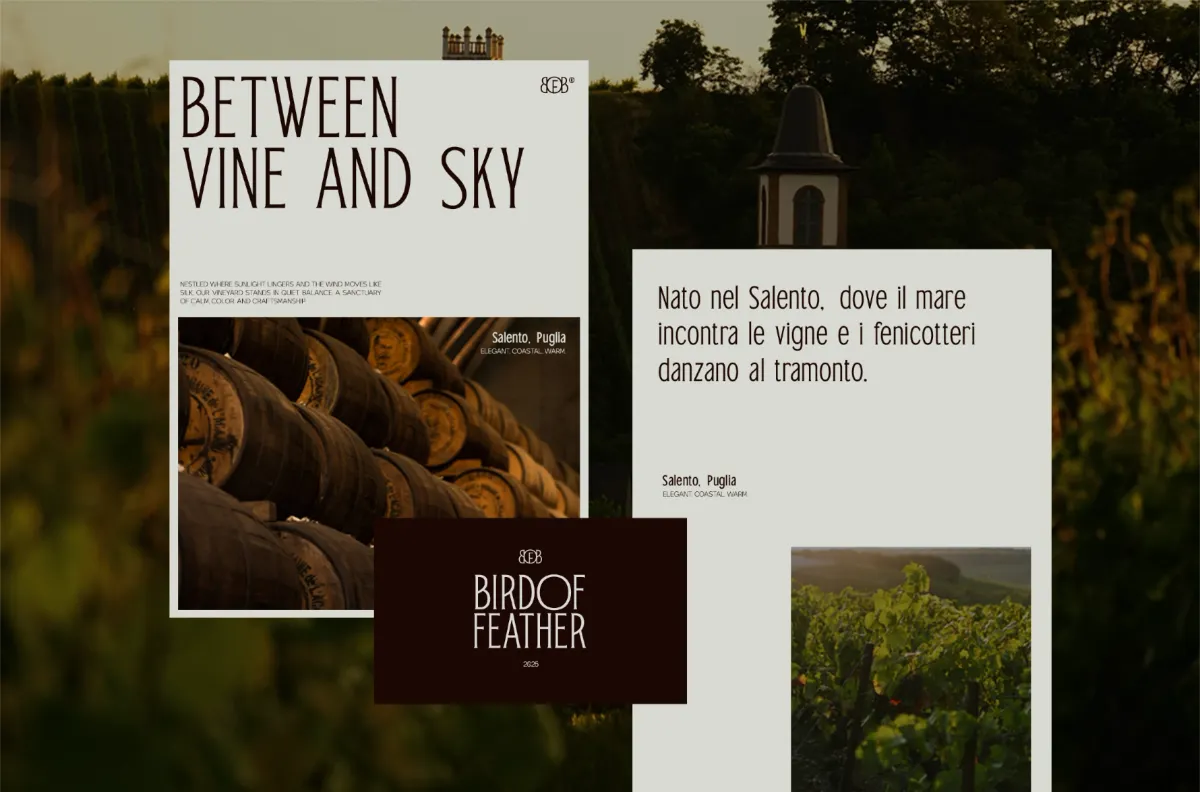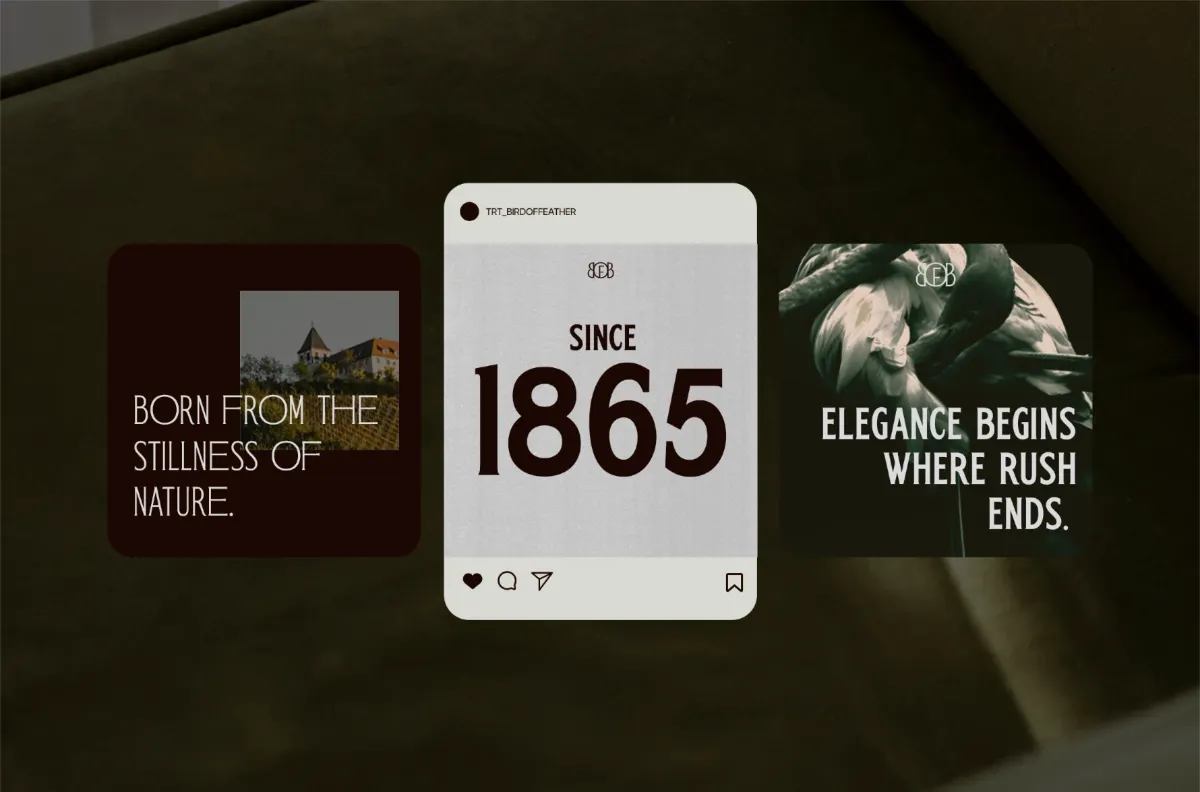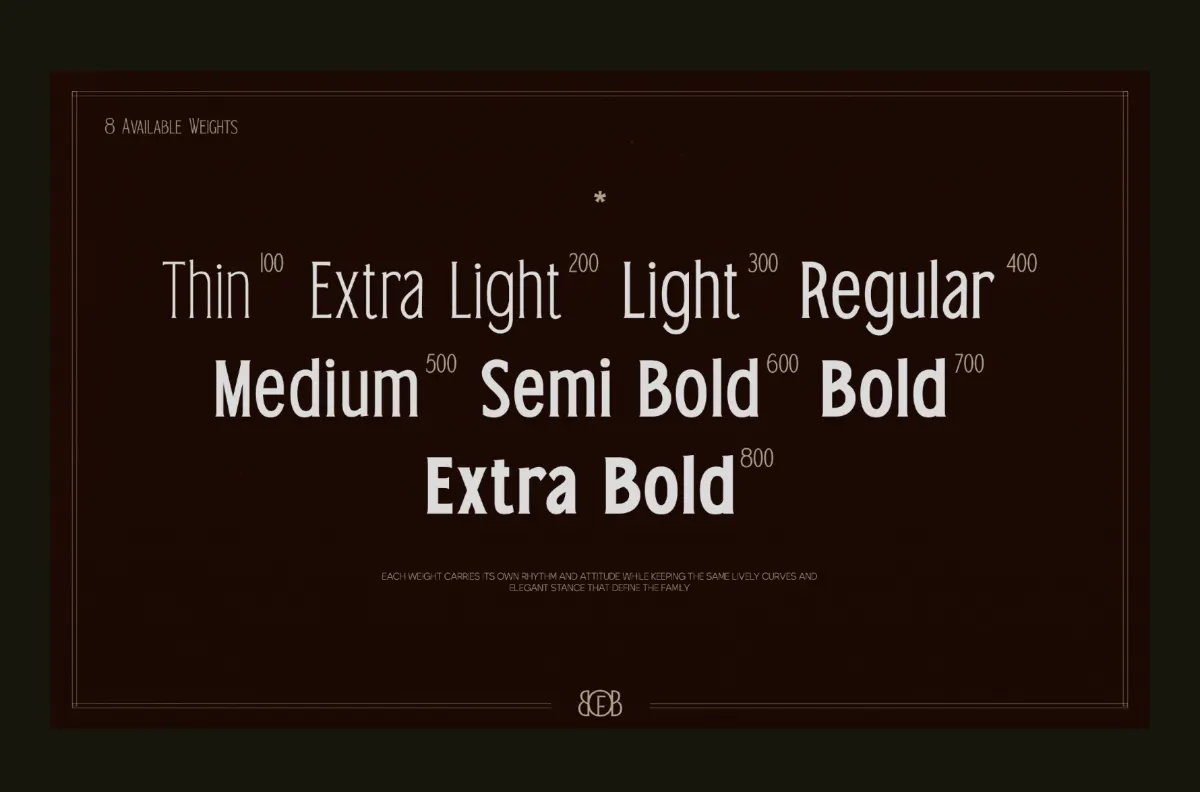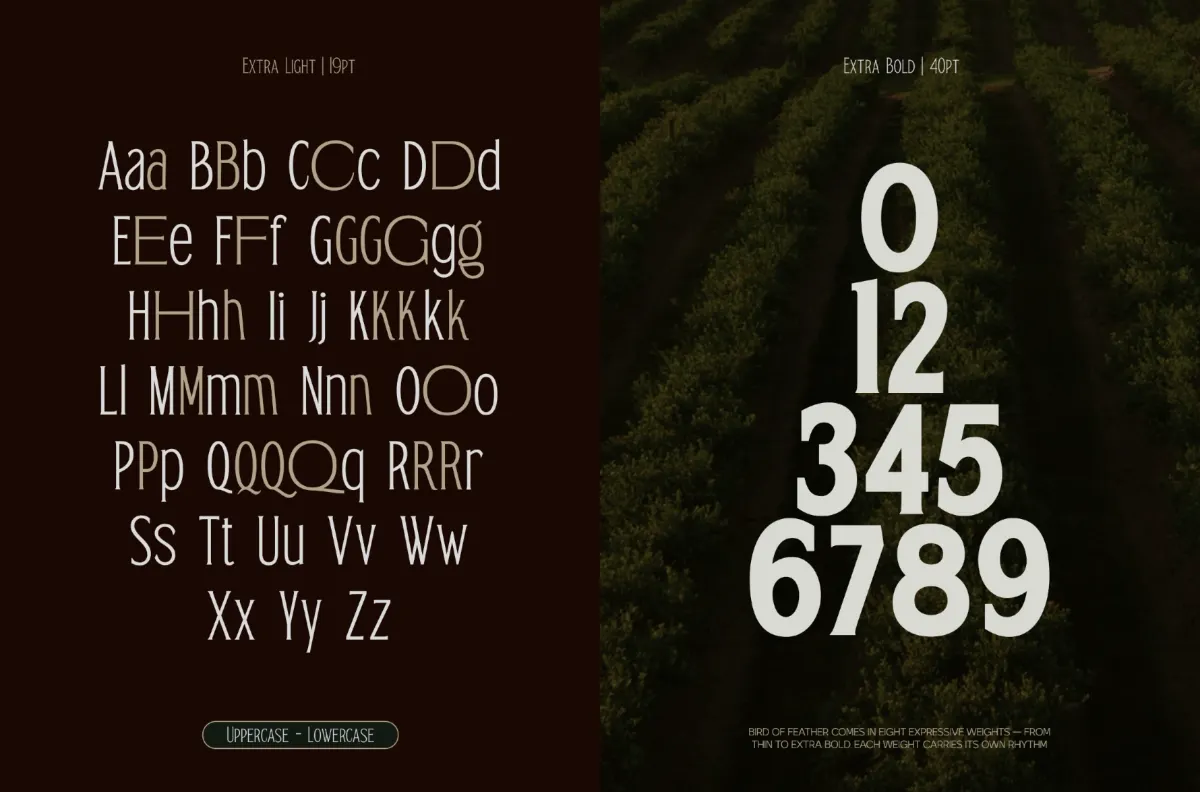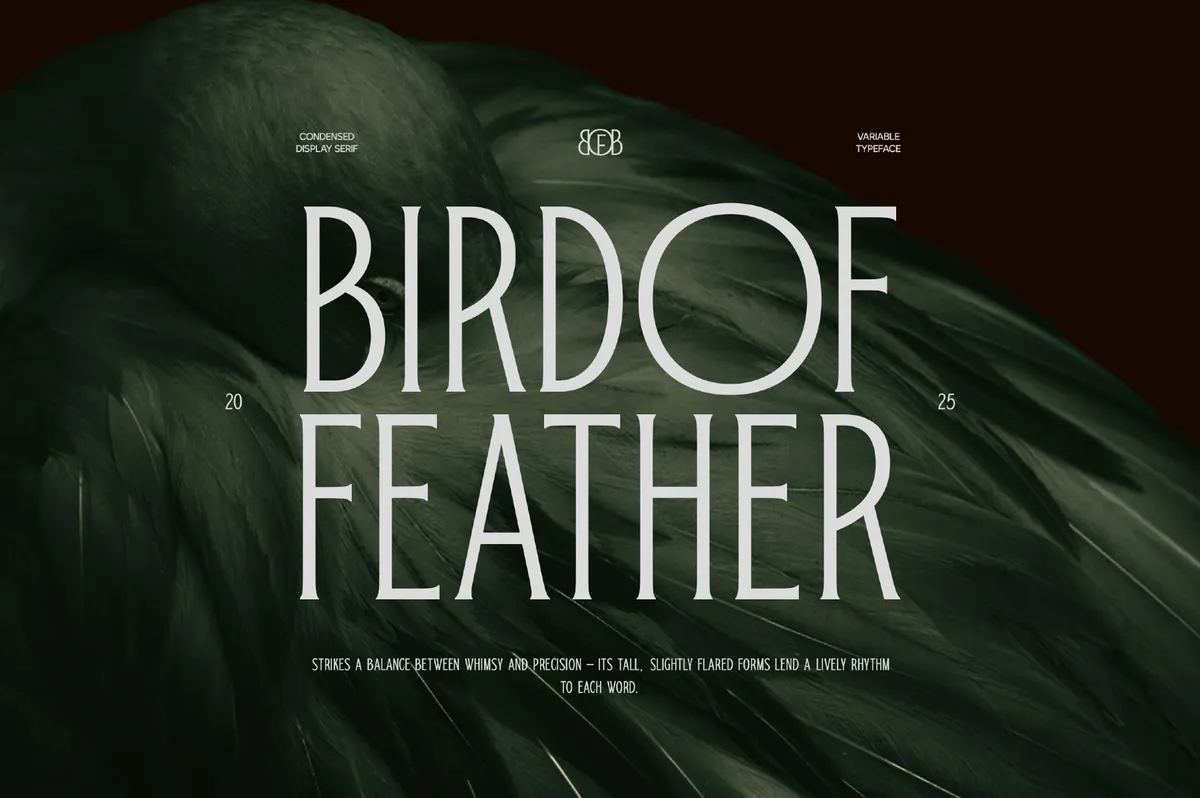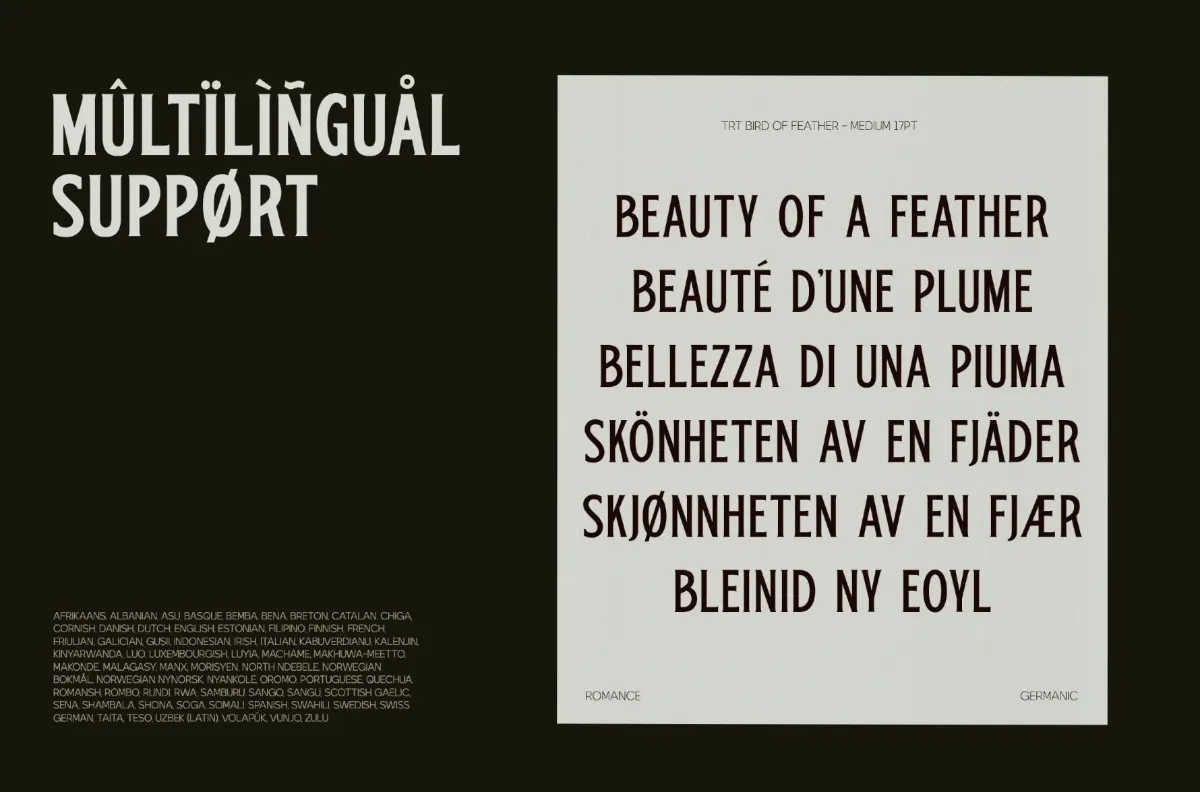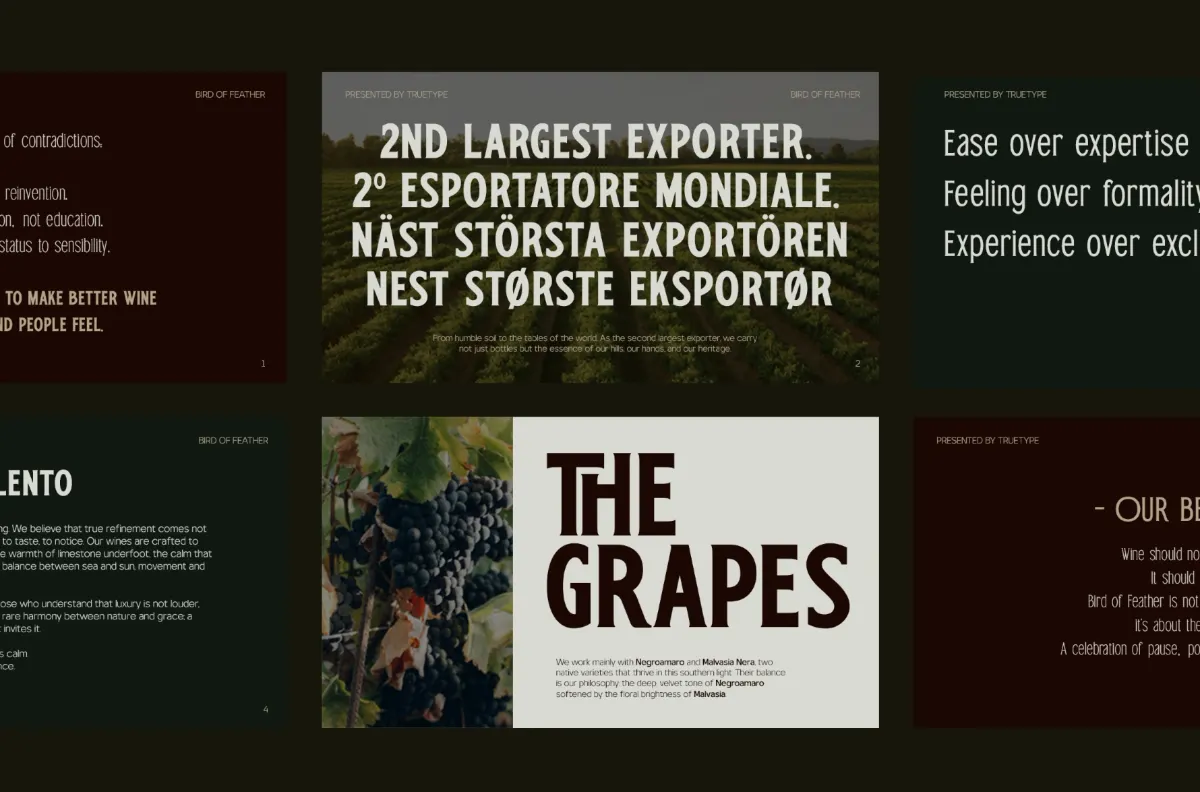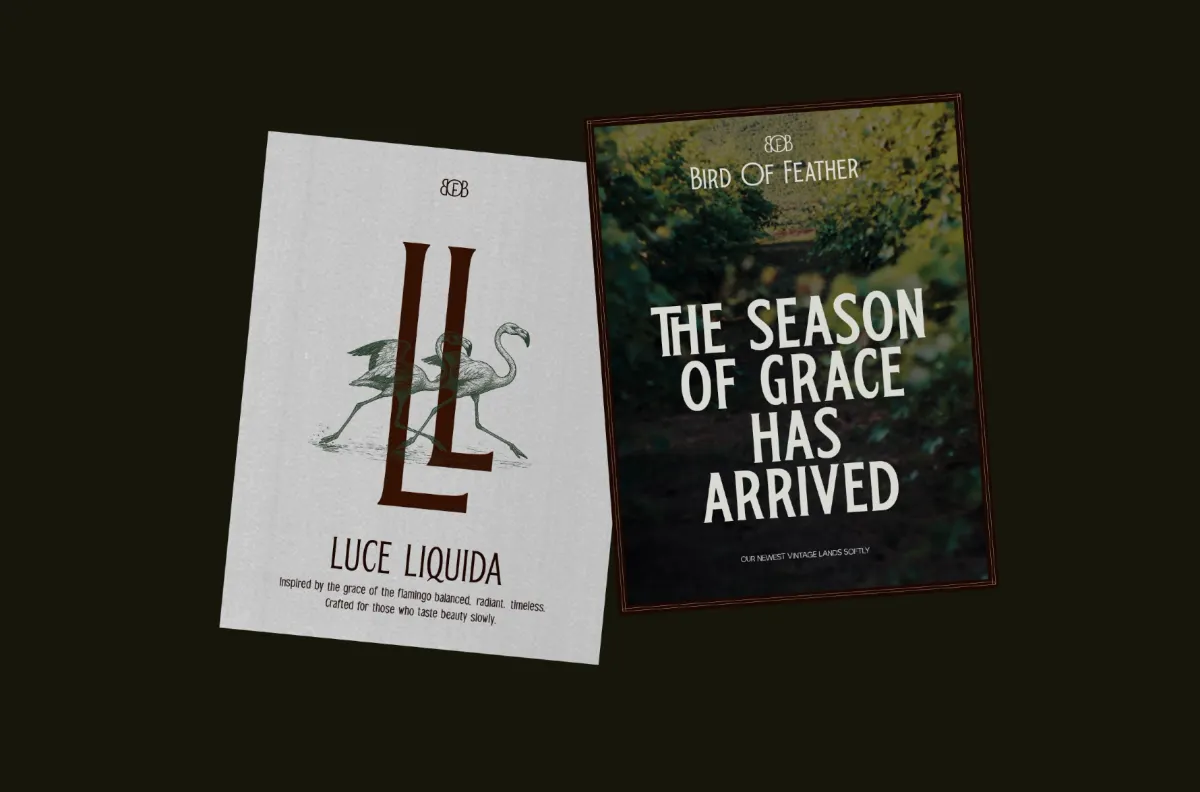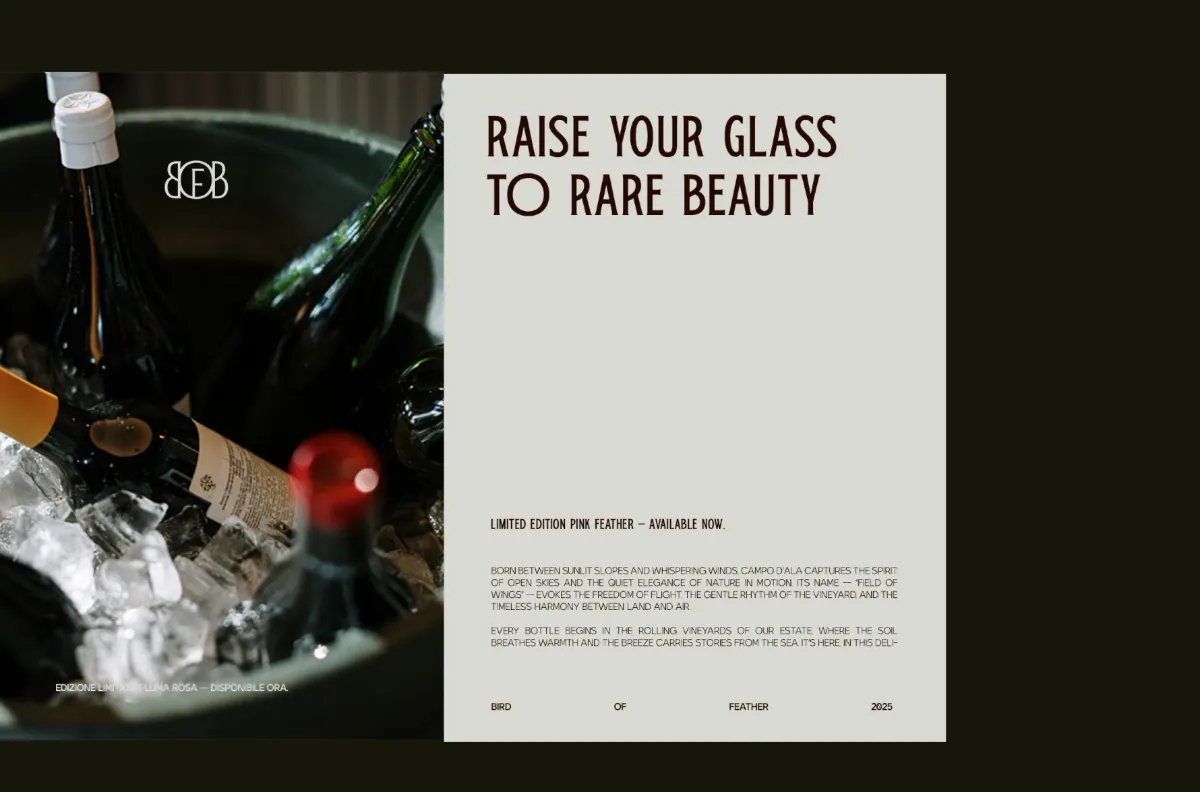
Bird of Feather - Condensed Display Serif Font
There's a quiet tension running through Bird of Feather — tall, slightly flared serifs that stay precise even as they lean into a bit of whimsy, giving this condensed serif typeface a rhythm that feels drawn rather than typeset. Eight weights carry that same narrow structure from a hairline Thin through to a dense Extra Bold, so a single wordmark can whisper in one line and command attention in the next.
It reads best set tall and tight, where the condensed proportions do the most work — a masthead, a fashion wordmark, a line of type wrapped around a bottle. Small caps and the alternate letterforms in its stylistic sets add just enough variation to keep longer headlines from feeling stamped out of a single mould. Use it for editorial headlines, logotypes and monograms, book covers, luxury packaging, and invitation or signage lettering.
- 8 styles: Thin, Extra Light, Light, Regular, Medium, Semi Bold, Bold, Extra Bold;
- Uppercase & Lowercase;
- Numerals, punctuation & symbols;
- Small caps, three stylistic sets with alternate letterforms, stylistic alternates, ligatures & discretionary ligatures, fractions, ordinals, superscript figures, kerning;